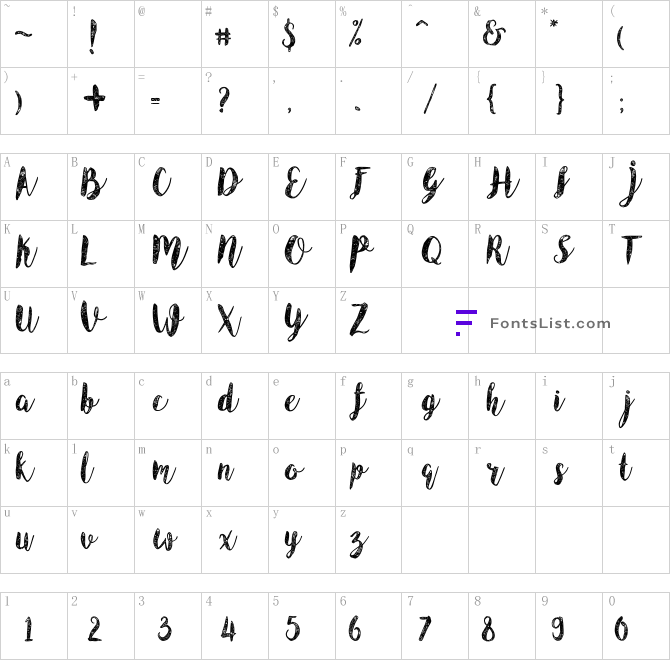
- Font Name:Angeline Vintage
Angeline-Vintage-copy-1-.ttf is a very beautiful artistic font, Angeline-Vintage-copy-1-.ttf is widely used in the design and printing of various books and pictures,Angeline-Vintage-copy-1-.ttf has a strong visual impact,Angeline-Vintage-copy-1-.ttf is a commonly used font in newspapers, magazines and books, and is used in posters, e-commerce Poster design, store design, logo design, font design and other fields.Angeline-Vintage-copy-1-.